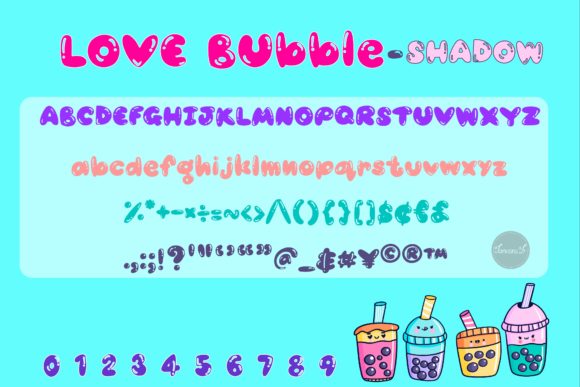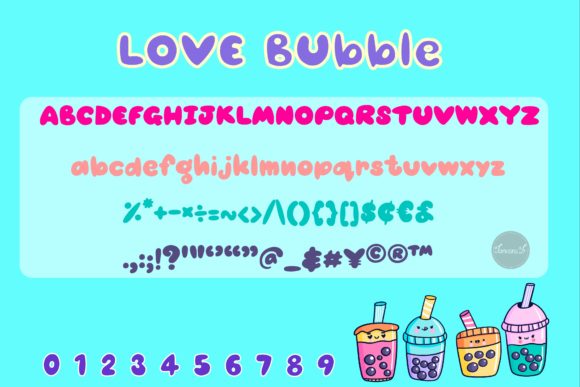
Love Bubble Font
db-ku.com - Script & Handwritten -- Love Bubble is a great and bold handwritten font. It features a regular and shadow styles that you can combine to make better results. It is perfect for logos, branding, product packaging and more!